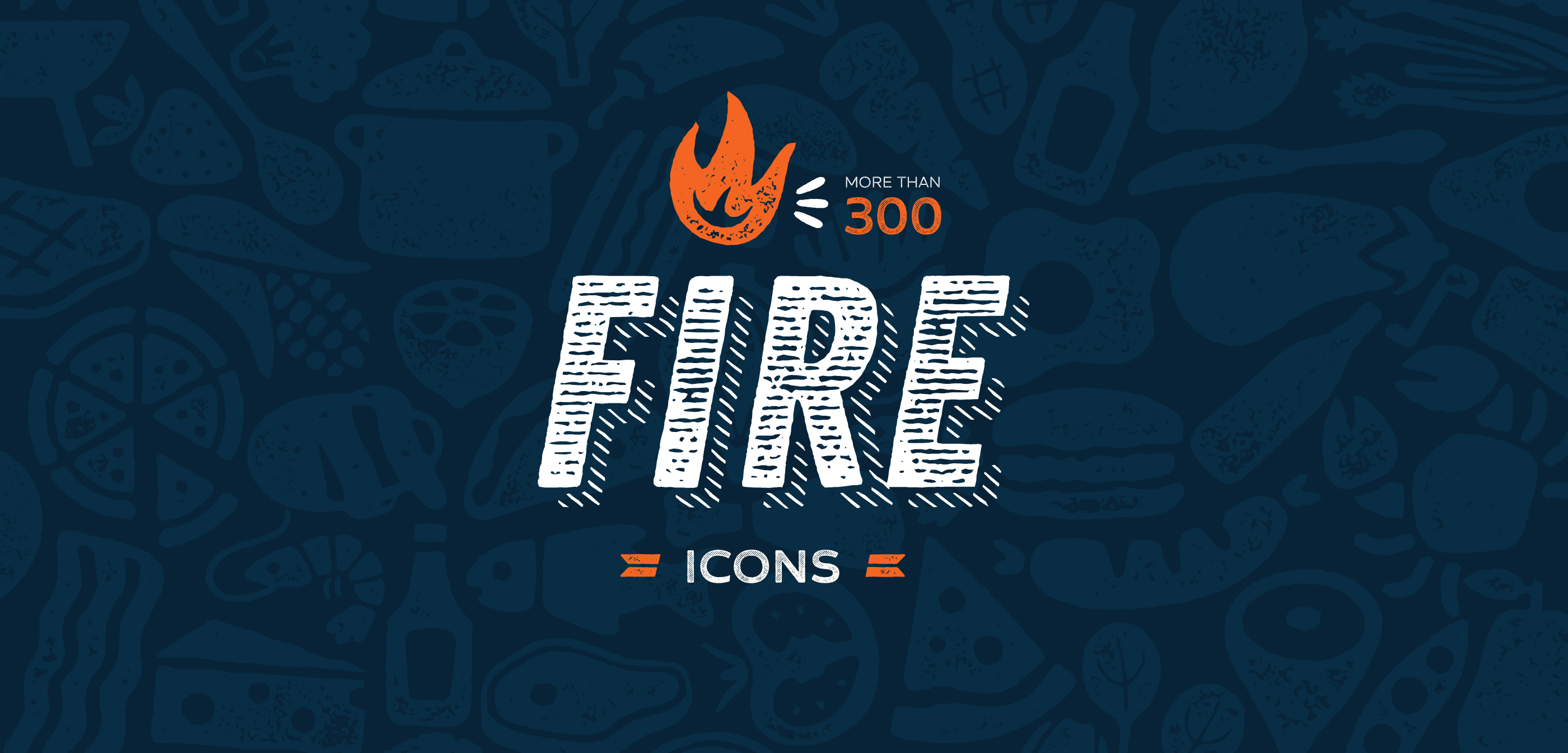
Zing Rust Similar Font
Zing Rust Similar Font. What fonts are similar to zing rust line diagonals1 base2 line shadow2? Zing rust contains 238 styles and family package options.
Zing rust™ is an extremely huge package of outstandingly handmade 521 fonts, with six of them offered for free! As its name refers zing rust™ stands for the vital freshness of your ideas and bold designs. As it’s name refers zing rust™ stands for the vital freshness of your ideas and bold designs.
Zing Rust Free Font Family Is A Huge Package Of Outstandingly Handmade 521 Fonts.
Each style could be used separate or merged in order to achieve all the creative designs you can imagine. As its name refers zing rust™ stands for the vital freshness of your ideas and bold designs. It is being fully programmed with opentype features.
Zing Rusttm, As The Name Suggests, Represents The Lively.
Light, Regular, Medium, Semibold, Bold, And Black With Matching Italics.
Zing script rust was designed by svet simov, jacklina jekova and published by fontfabric. Fontfabric produced and published the zing rust typeface family. Zing rust was designed by svetoslav simov, stan partalev and published by fontfabric.
Zing Rust Is A Typeface Family Designed By Fontfabric.
It has major 4 subfamilies including zing rust. It is available in 6 weights: Zing rust is extremely huge package of outstandingly handmade 521 fonts!